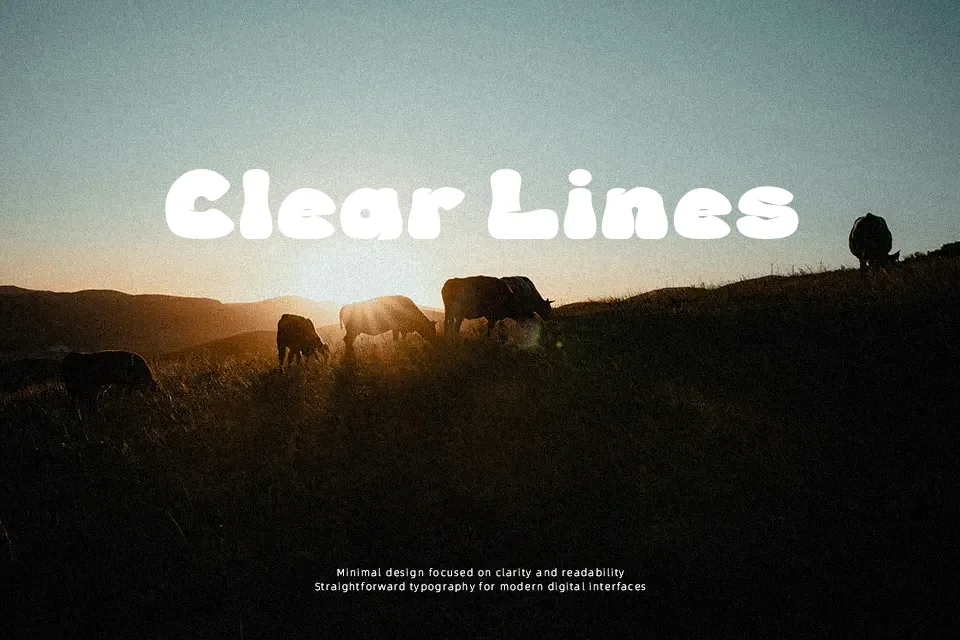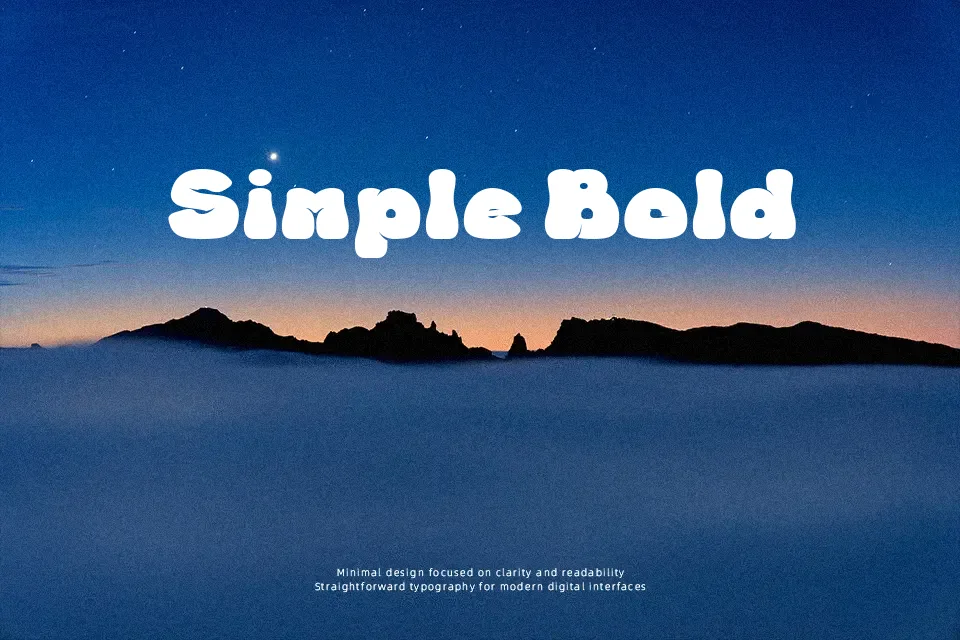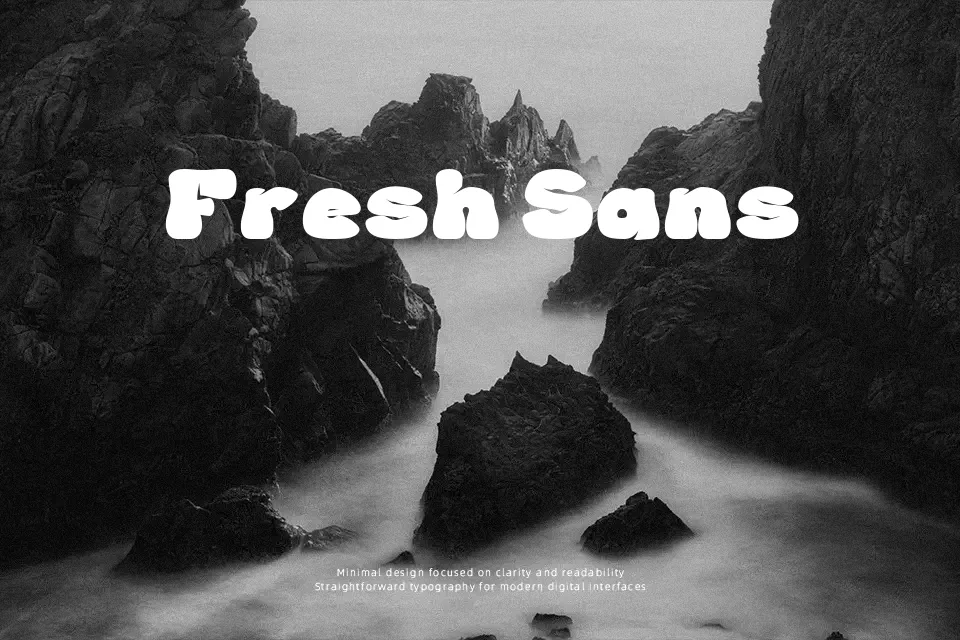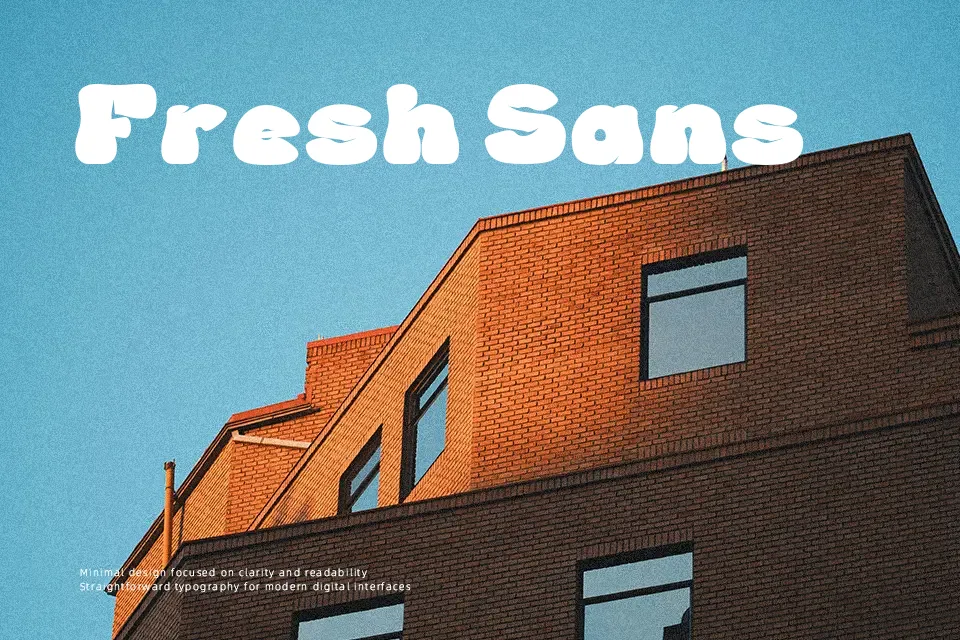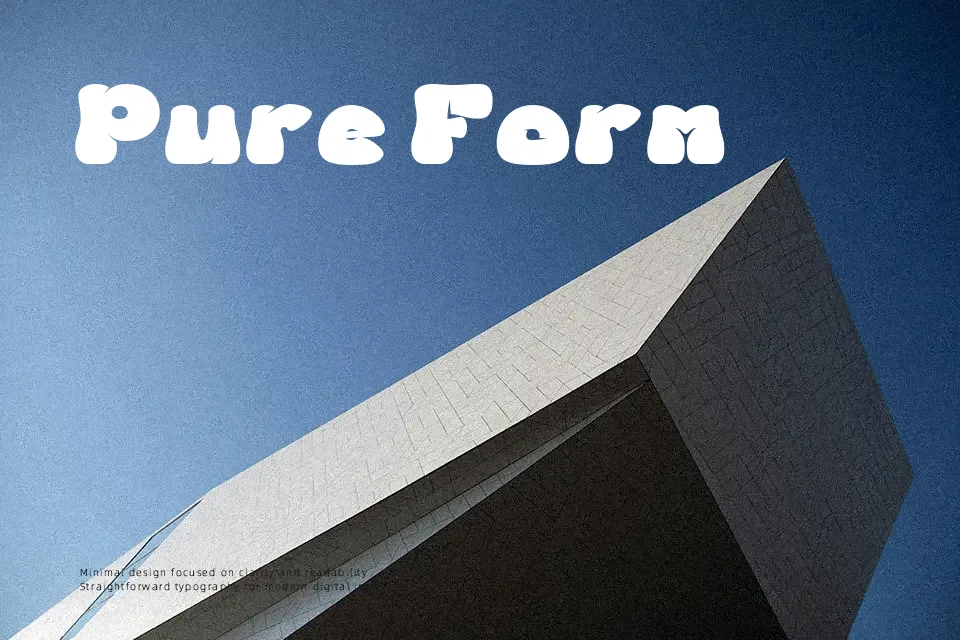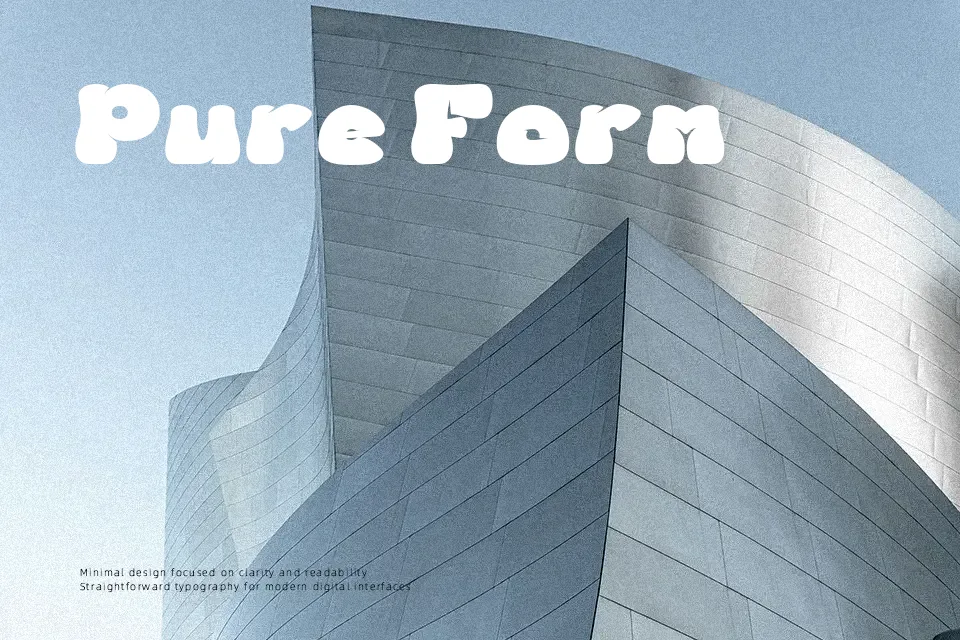
Bedigh Font
Bedigh carries the unmistakable energy of bubble lettering — thick, puffy strokes with low contrast and wide, rounded forms that feel like they belong on a retro carnival sign or a Gen-Z streetwear drop. The spacing is generous, and the overall weight reads bold without aggression. It works well as a standalone headline or logo mark where personality matters more than subtlety. Children’s event posters, youth-brand packaging, and playful social media assets are where this font genuinely earns its place. That said, its exaggerated bubble style becomes a liability in any context demanding professionalism or sustained readability — do not attempt body copy, formal documents, or dense UI text with it. The demo version also lacks documented weight variations, which limits typographic flexibility.
Best For:- Party invitation headers and event flyers
– Children’s product packaging or book covers
– Youth-oriented brand logos and social media banners
– Retro-themed posters and merch graphics
Not Ideal For:- Long-form body text or editorial paragraphs
– Corporate or professional business documents
– UI design requiring clean hierarchy
Perfect for advertising, holiday, and kids, with a bold and decorative style.